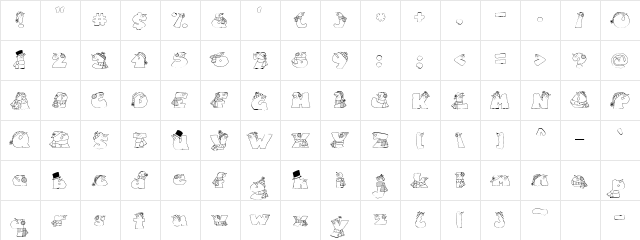
LDJ Snowmen Regular
Design Context for LDJ Snowmen Typeface
LDJ Snowmen is a composed and adaptable typeface that performs quietly and consistently across a wide range of design contexts.